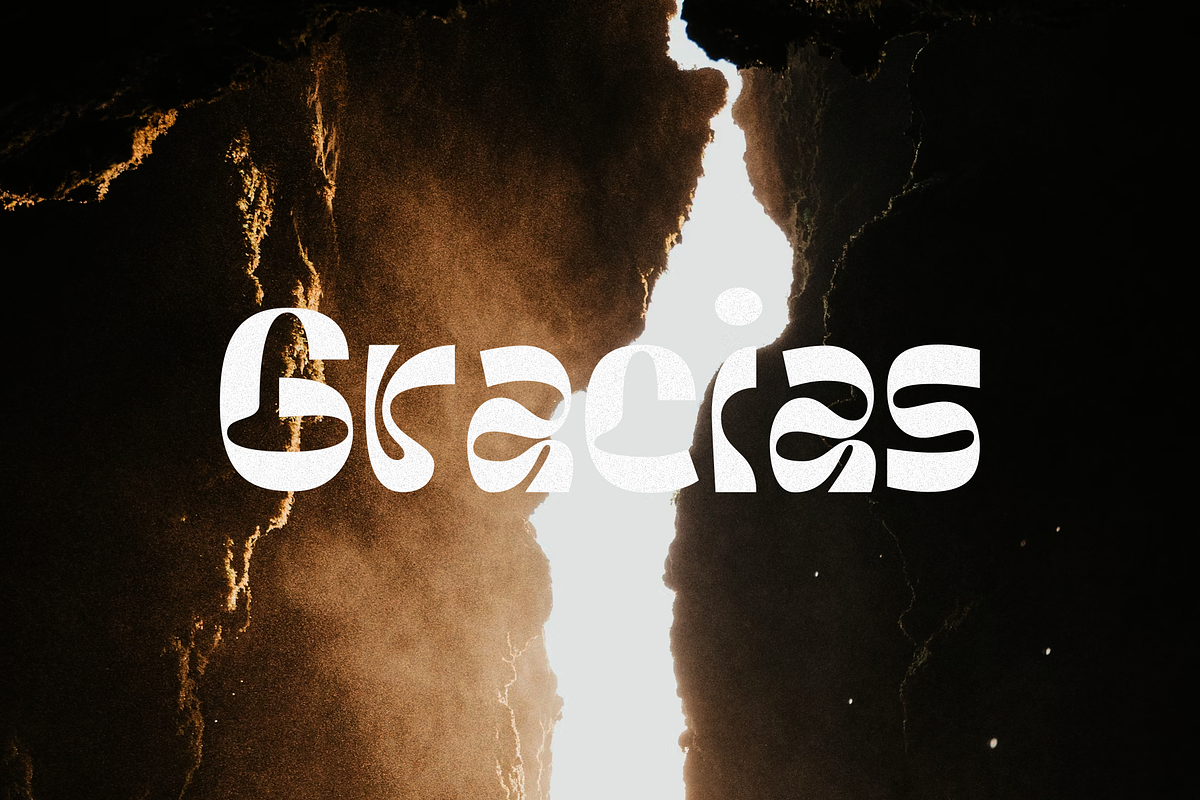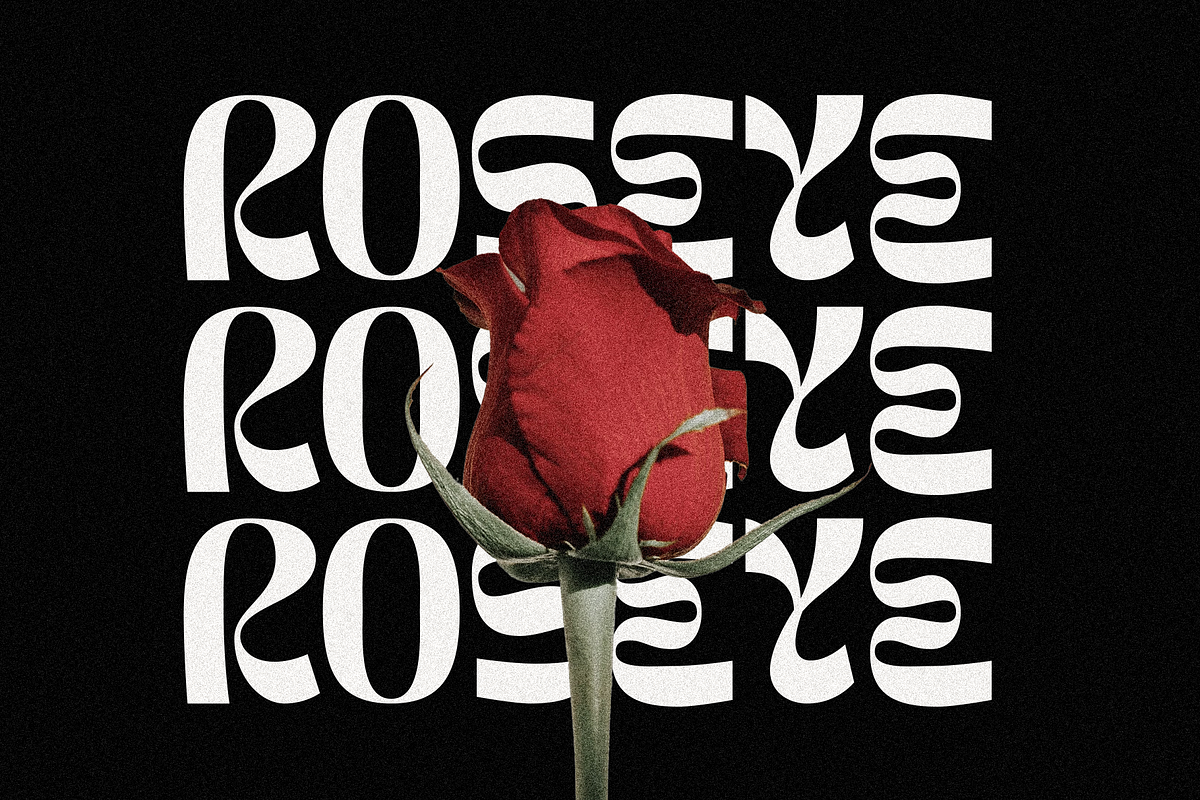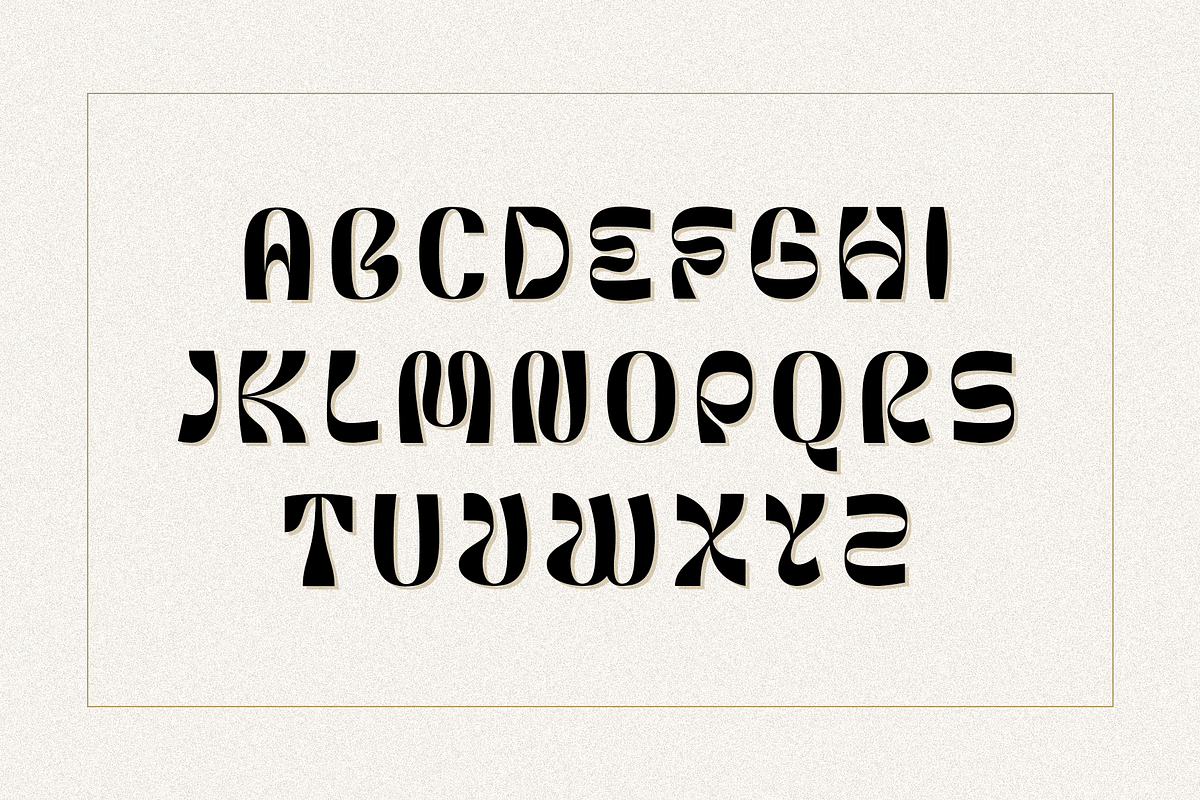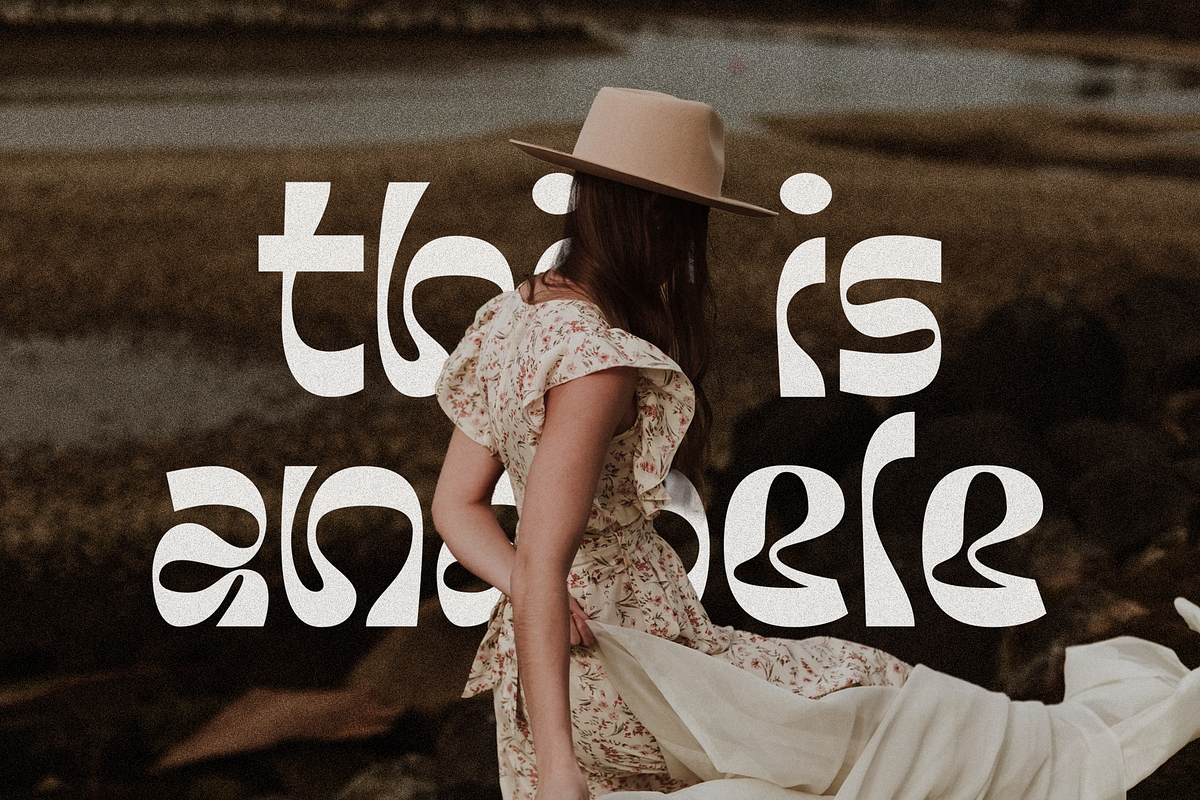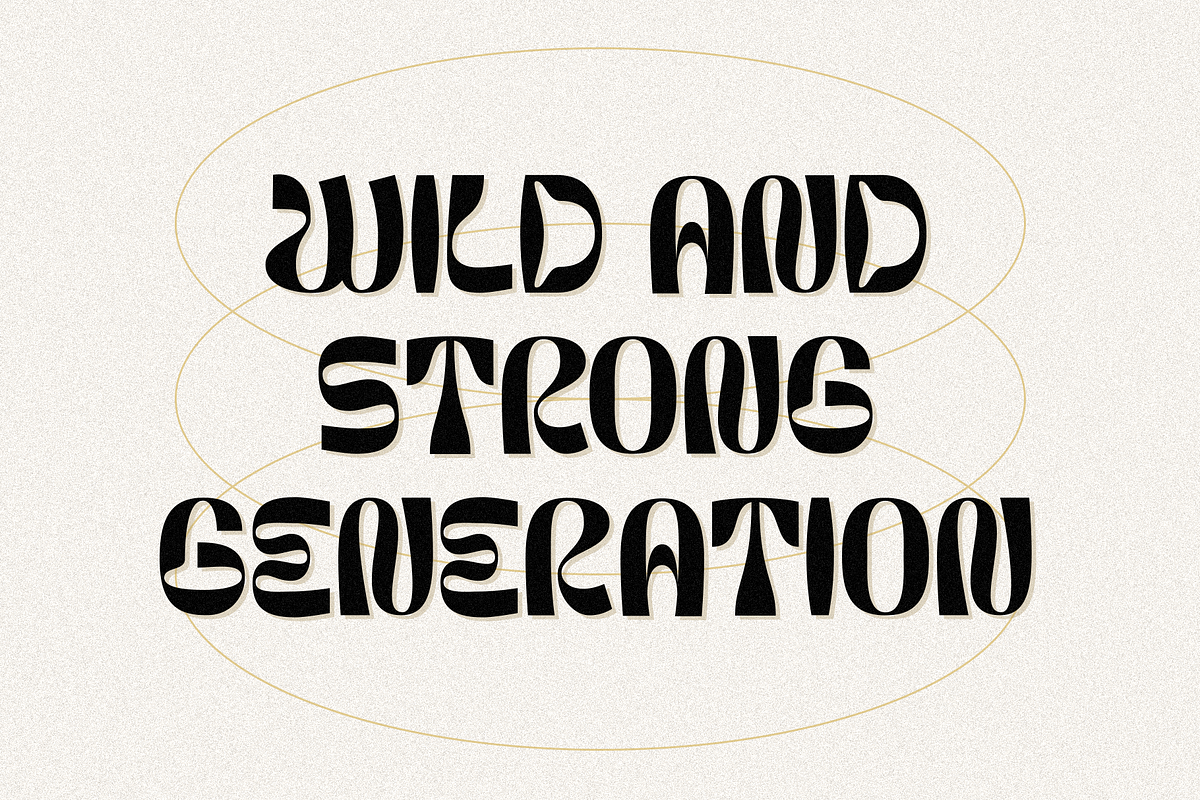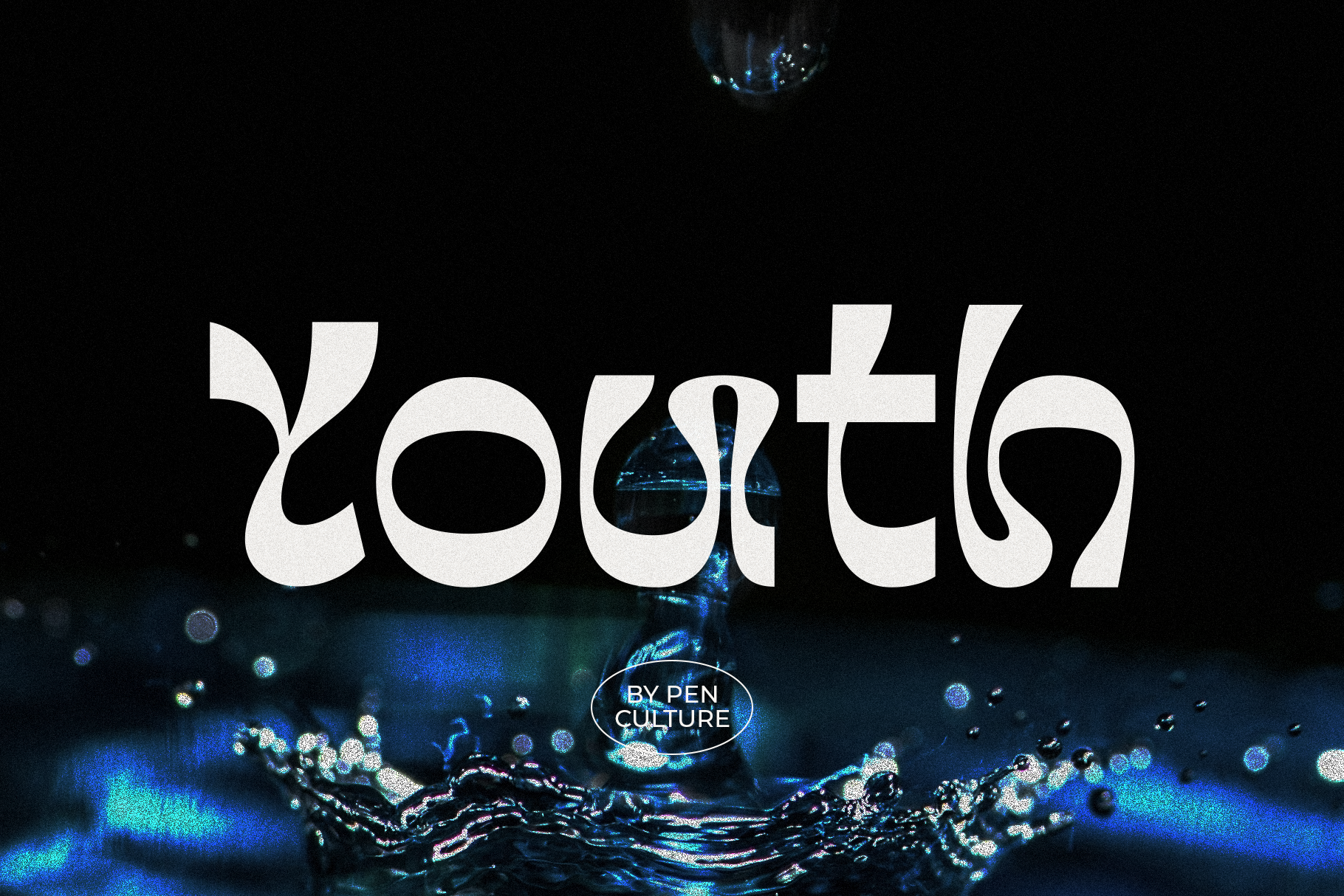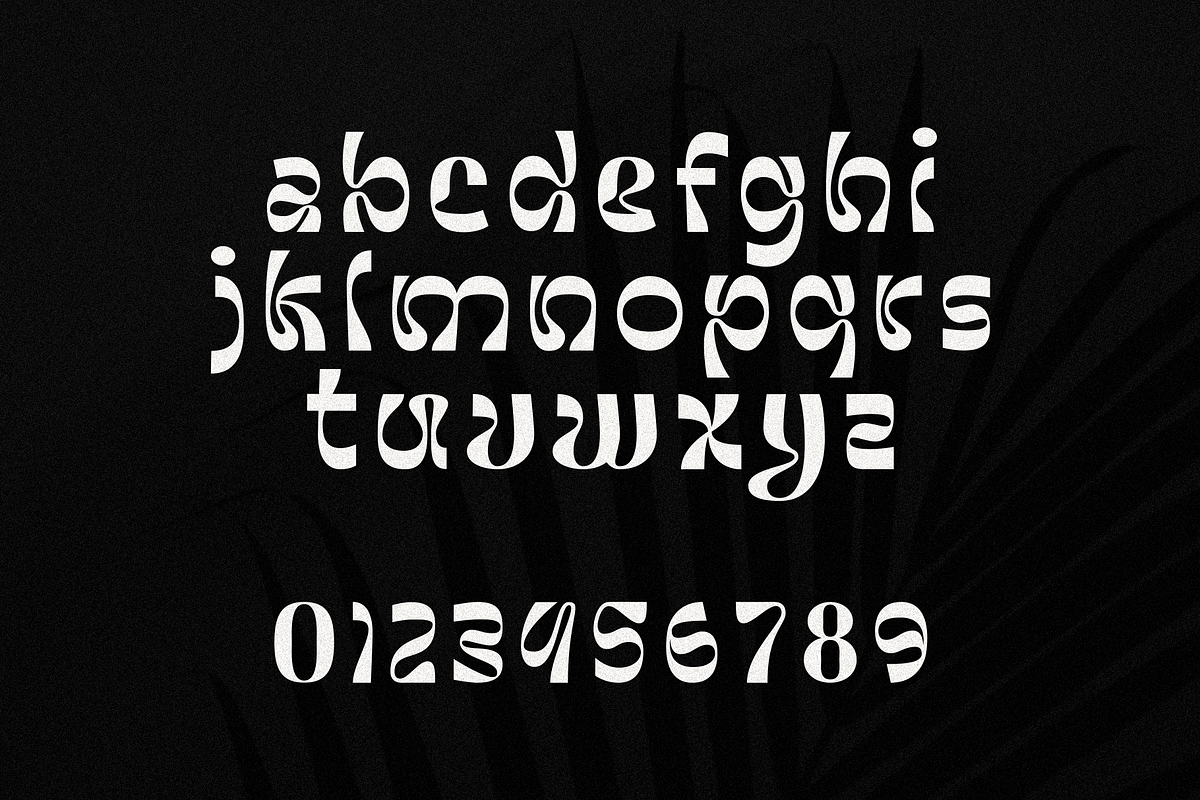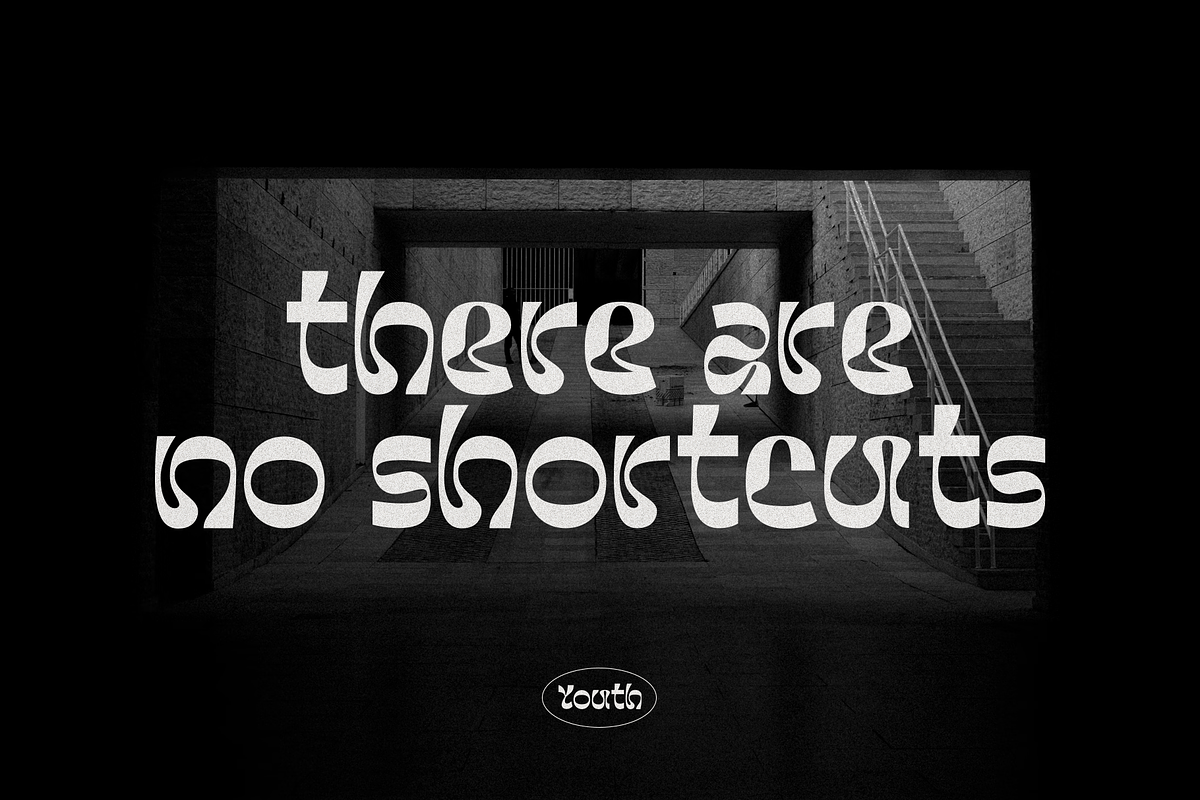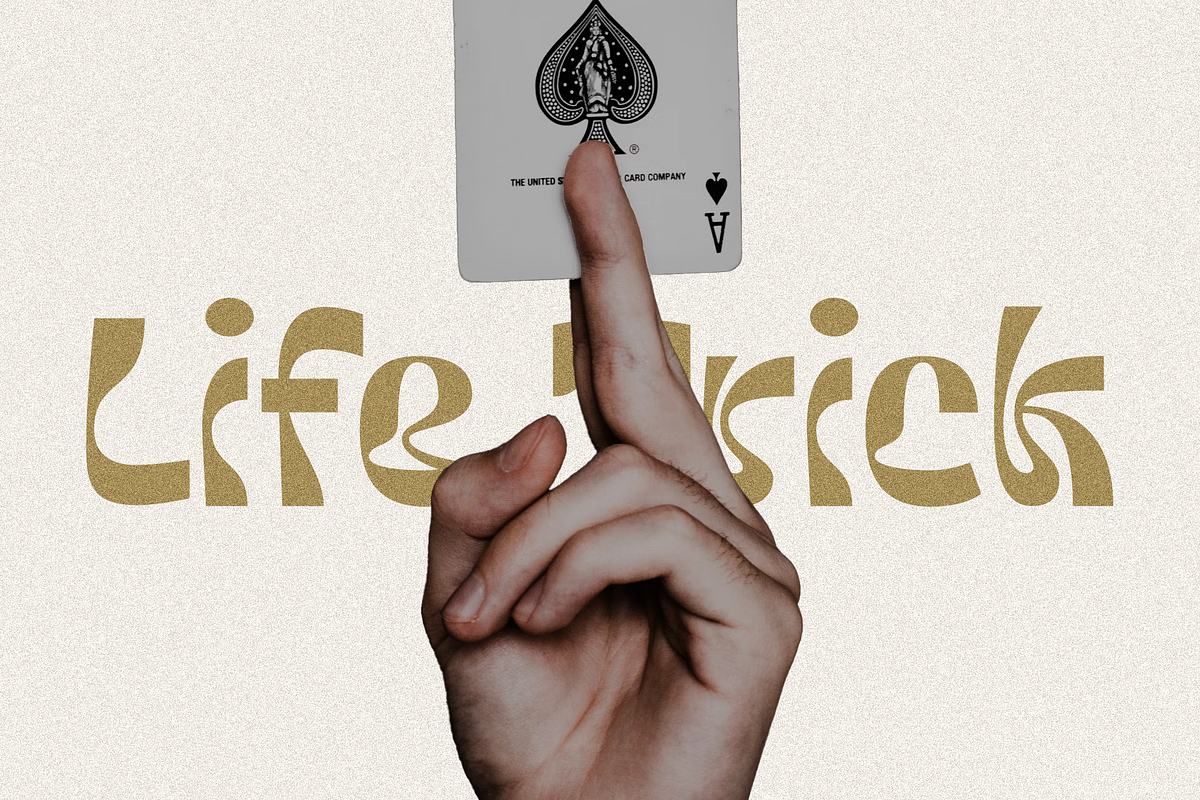
Youth Display Font
Youth is a sleek and versatile modern display font designed to make a statement. With its clean lines and a wide range of stylish alternates, Youth allows you to add dynamic flair and creativity to your designs. Perfect for logos, posters, headlines, branding, and digital projects.
This font offers endless versatility while maintaining a bold and contemporary edge. Whether used for minimal layouts or eye-catching statements, Youth is the perfect choice to elevate your modern design projects.